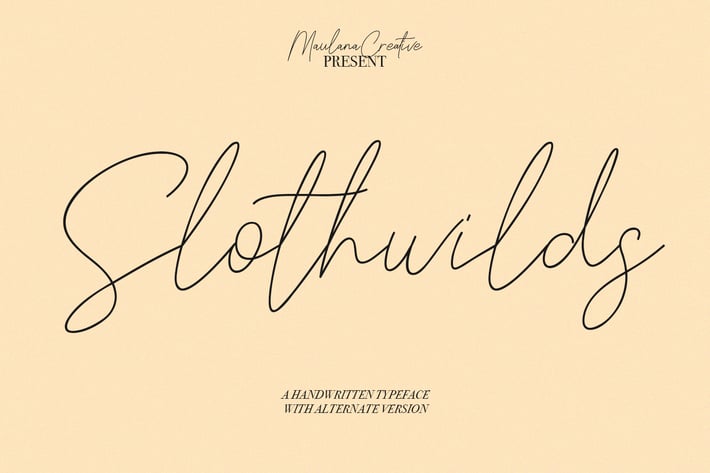
Slothwilds Handwritten Typeface
Give your designs an authentic handcrafted feel. Slothwilds Handwritten Typeface is perfectly suited to signature, stationery, logo, typography quotes, magazine or book cover, website header, clothing, branding, packaging design and more.